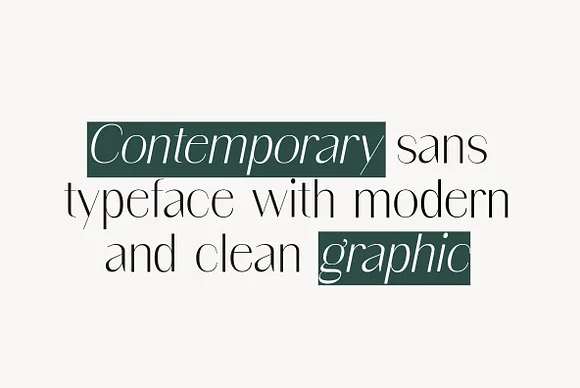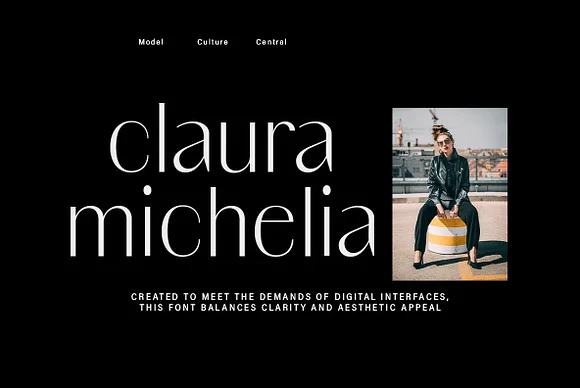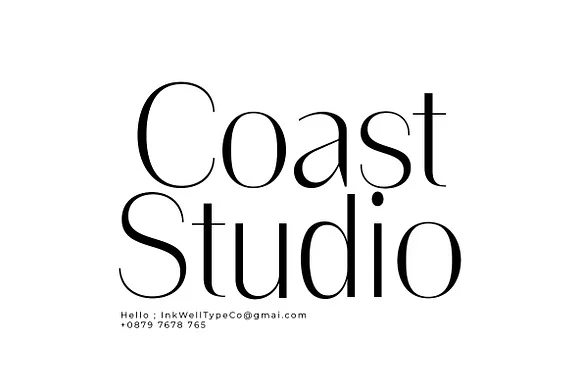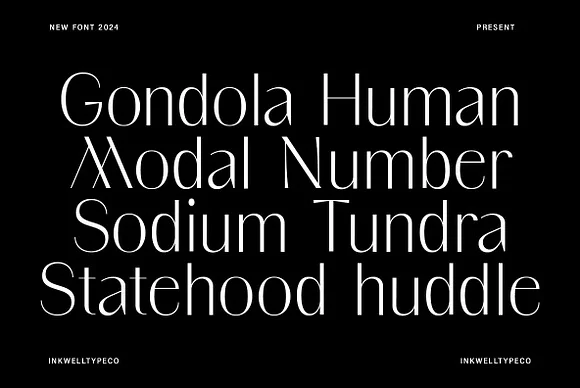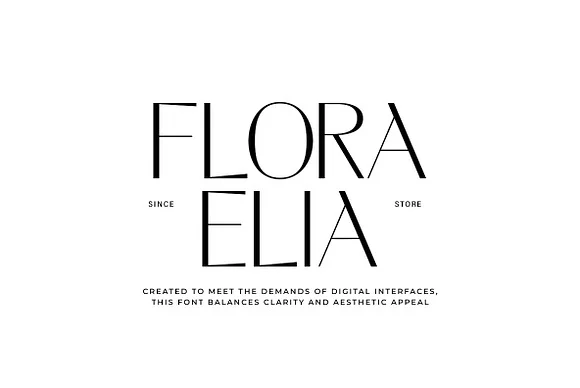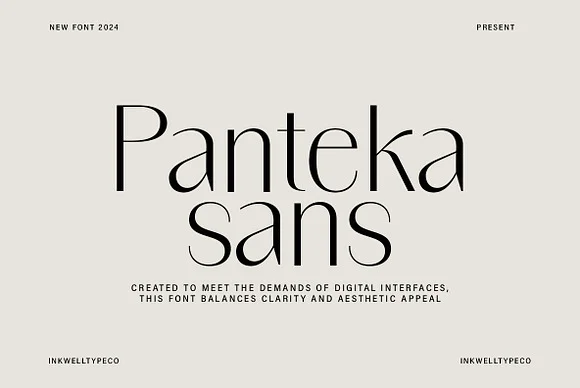
Panteka Sans Font
Few typefaces manage to balance strong typographic hierarchy support with genuine day-to-day practicality. Panteka Sans is one of them. The typeface brings a clean, humanist sensibility to a broad range of creative disciplines, with refined proportions and careful stroke modulation that holds up whether the work is print-first or screen-first.
In practice, Panteka Sans proves particularly effective for corporate websites, poster creation, social media graphics, app interfaces, environmental graphics. Designers reaching for it find that the type decisions feel resolved rather than laboured — a useful quality when client timelines are tight.
The range of applications extends to startup identities, tech documentation, packaging design, annual reports. That breadth is deliberate: the proportions and spacing were stress-tested across a wide range of mock briefs before the typeface was finalised.
Unlike geometric sans-serifs built on circles and squares, this design takes its cues from the proportions of classical Roman letterforms, producing a warmth that sustains reader comfort over long passages of text without sacrificing the clean lines expected in modern digital interfaces.
At smaller sizes the design retains its character without becoming cluttered. This resilience across scales makes Panteka Sans equally suitable for a business card and a billboard — a useful property when assets must scale across a campaign.
Art directors commissioning type-led campaigns find Panteka Sans a reliable choice for projects that demand both personality and restraint. The design avoids the self-conscious quirkiness that dates quickly, settling instead for considered distinctiveness that holds up over time.